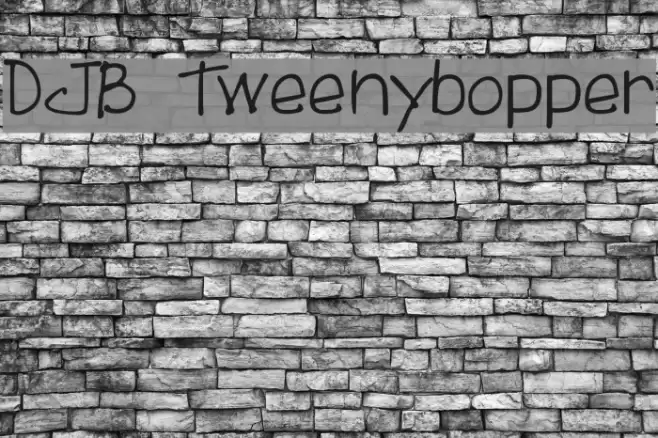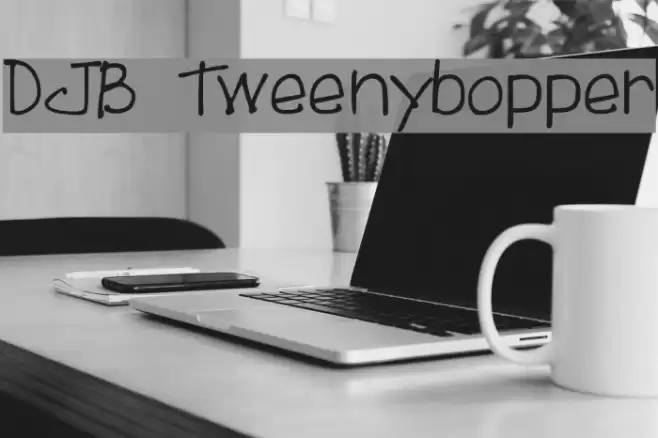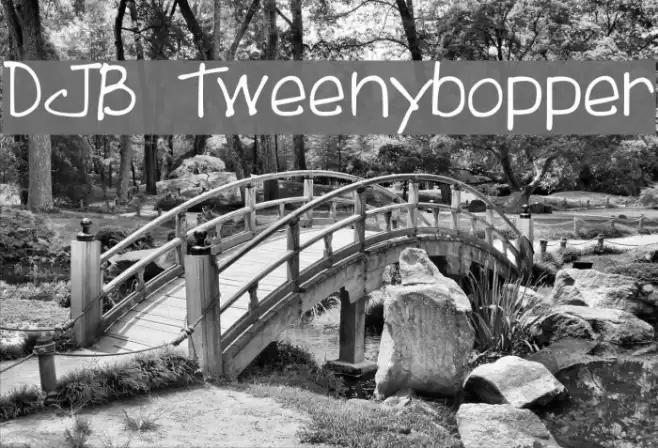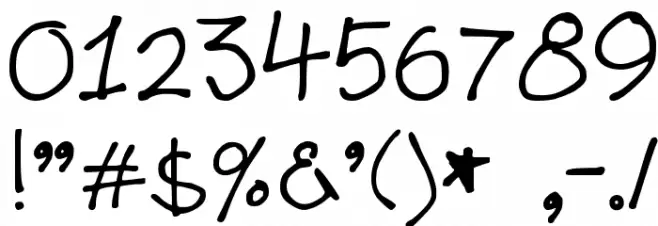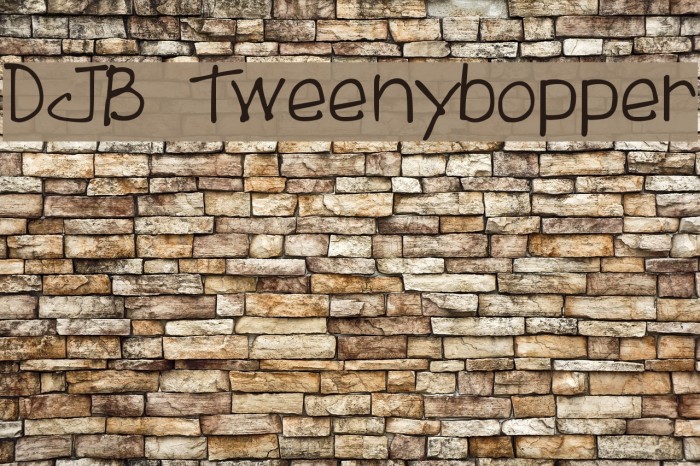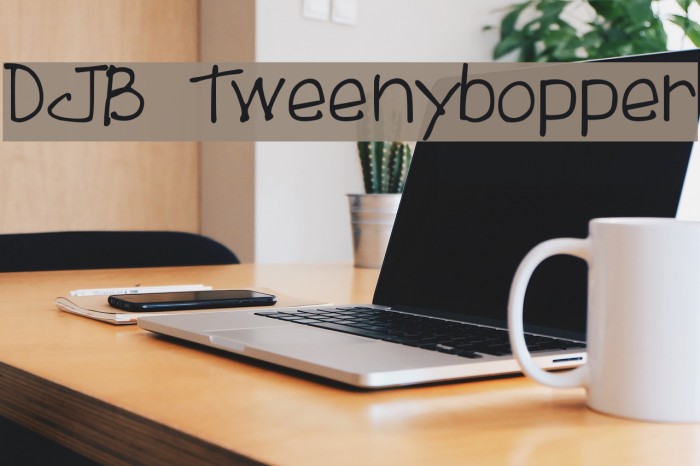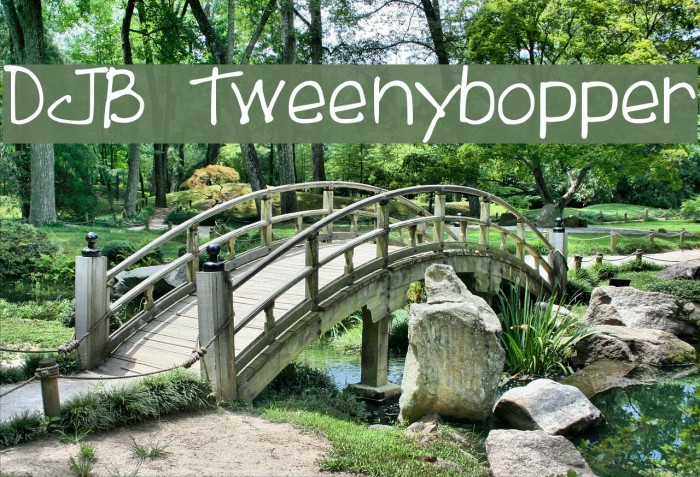
DJB Tweenybopper
This playful and whimsical font features a handwritten style with a casual and friendly appearance. The characters are slightly irregular, adding to the charm and informal vibe. The uppercase and lowercase letters are well-balanced, with a consistent stroke width that maintains readability. The numerals and special characters are designed to match the playful aesthetic, making it suitable for creative and fun projects. The font's overall look is approachable and youthful, ideal for designs that aim to convey a sense of joy and spontaneity.
A playful, handwritten font with a casual and friendly style.
- Proposed Projects: Ideal for children's books, greeting cards, playful branding, and casual invitations.
- Overall Style: Casual, Playful
- Use Case: Headlines, Informal text, Creative projects